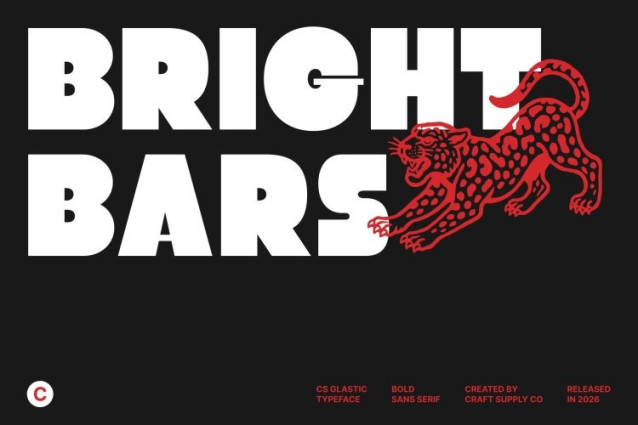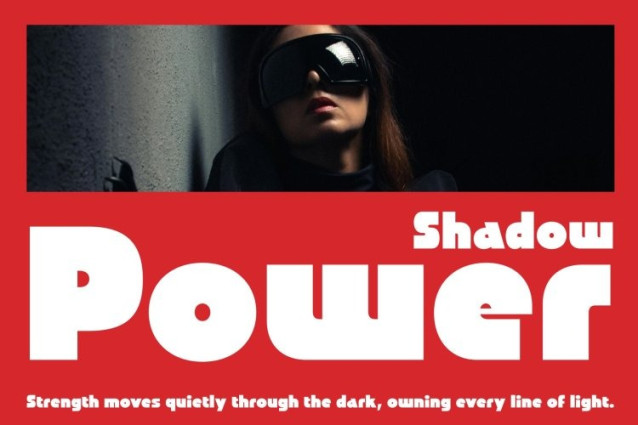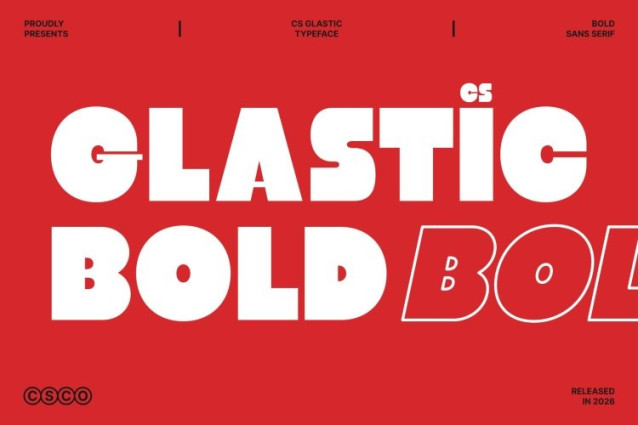
CS Glastic Font
CS Glastic Font This is a modern sans serif display font designed to deliver bold impact through clean, geometric construction. Built with strong shapes and confident proportions, this font creates an immediate visual presence that feels modern, expressive, and powerful.
Clean Geometry with Bold Personality
The letterforms of this font are defined by sharp geometry and solid structure, resulting in a clean and contemporary appearance. Strong lines and balanced spacing give the font a confident stance, while its bold weight enhances visibility and authority. This geometric foundation allows the font to feel structured and professional, making it highly effective for modern design environments.
Funky Touch with Unique Energy
What sets this font apart is its subtle funky character woven into the clean geometric framework. Unique details and playful proportions add personality and energy, giving the font a distinctive edge without compromising readability. This combination of order and creativity makes ideal for designs that aim to feel expressive, youthful, and visually engaging.
Perfect for Bold and Expressive Designs
Designed for standout applications, this font is perfect for branding, posters, logos, packaging, and promotional materials that require a bold and expressive look. Its modern geometric style with a funky twist makes it especially suitable for creative brands, entertainment visuals, fashion graphics, and contemporary campaigns.